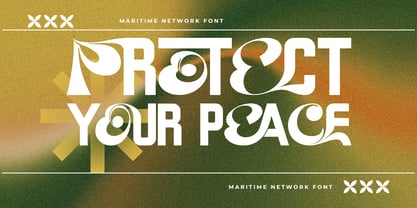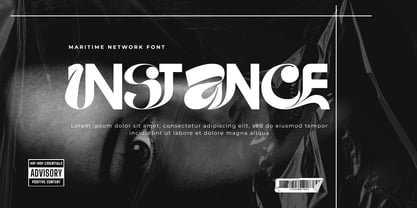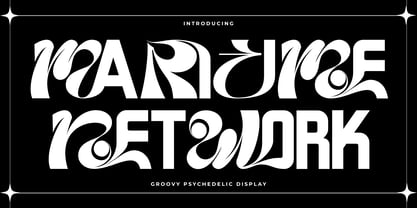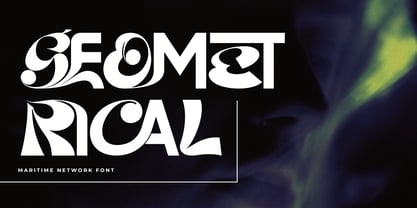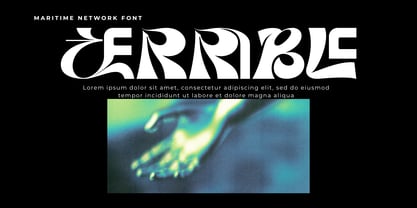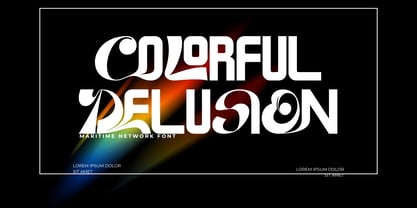
Maritime Network
von 177Studio
Die Schriftfamilie Maritime Network wurde von 177Studio entworfen und von 177Studio veröffentlicht. Maritime Network enthält 2 Stile und Familienpaketoptionen. Mehr über diese Familie
Maritime Network - Psychedelic Font – Psychedelic Ocean Wave & Liquid Display Font, a spellbinding psychedelic display font inspired by the fluid dynamics of ocean waves and 1970s liquid graphics. Characterized by its heavy chunky stature, sweeping wavy baselines, and embedded circular orb accents, this typeface brings an intoxicating organic rhythm and retro-futuristic energy to modern graphic design.